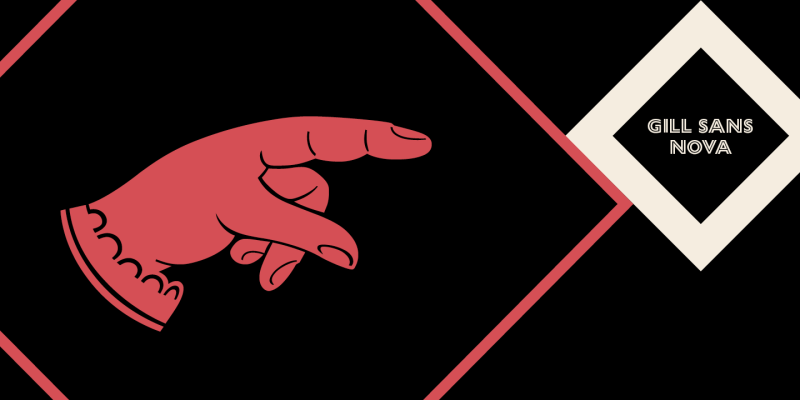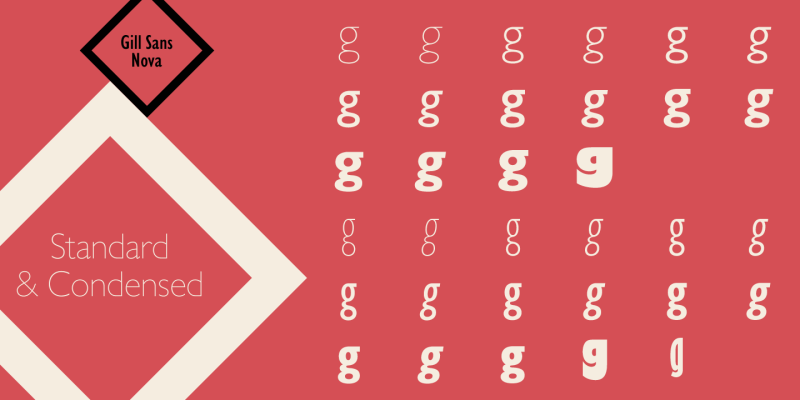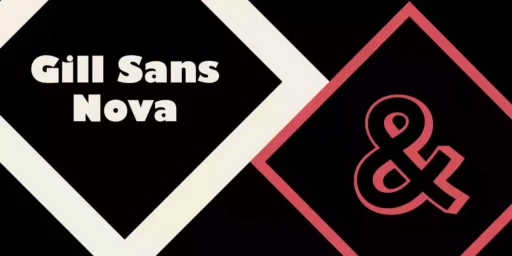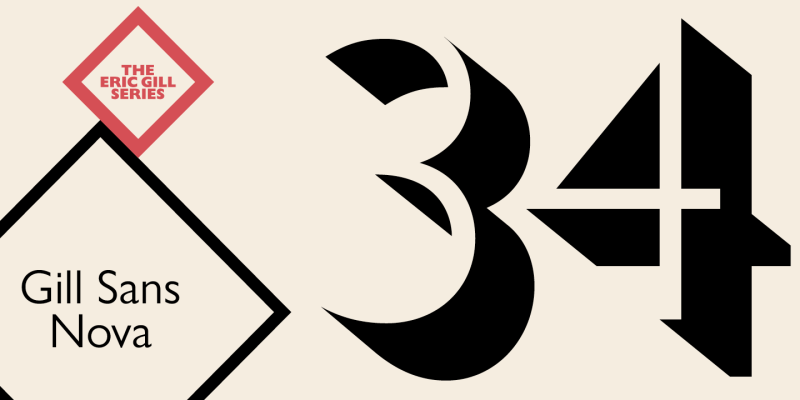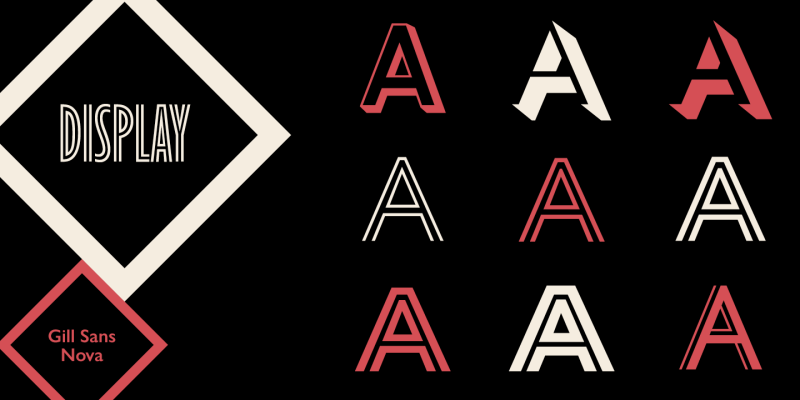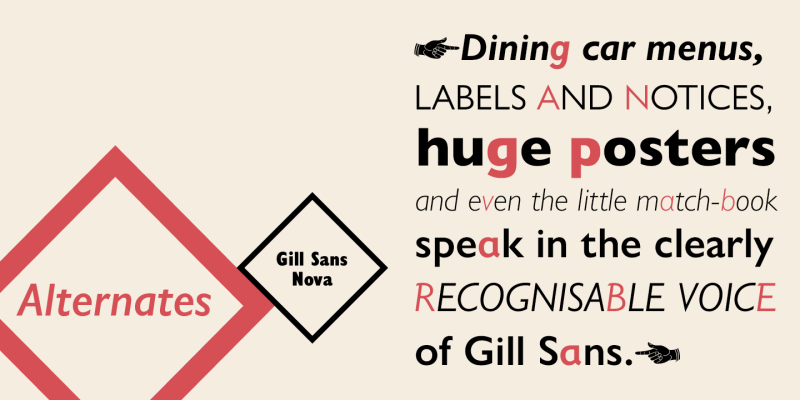
Gill Sans Nova Font
Gill Sans Nova is a modern revival of the famous Gill Sans font, created by the prominent British designer Eric Gill in the 1920s and 1930s. Monotype’s George Ryan designed Gill Sans Nova in 2015 to transform the classic version to fit in with modern digital environments without losing its original spirit.
Gill Sans Nova retains the distinctive characteristics that made the original Gill Sans so famous: its cleanliness, geometrical shapes, open counters, and humanistic impact. However, Ryan has introduced numerous improvements and additions that would make it more flexible and functional for contemporary designers and typographers.
A significant improvement of Gill Sans Nova is extending its character set to additional weights, styles, and language support. This makes typographic expressions more flexible in design projects for both print and digital media, helping typographers create a wide range of expressions.
Further, Gill Sans Nova integrates enhancements in spacing and kerning, making it more readable and attractive in various text sizes and settings. With Ryan’s adjustments, the typeface remains readable and elegant even in challenging typographic environments.
In addition, Gill Sans Nova includes richer OpenType capabilities, which gives typographers new opportunities for innovative typography. Such characteristics encompass alternate characters, ligatures, and stylistic sets that empower designers to tweak the look of a text, making it more attractive to their designs.
Where Gill Sans Nova Font works best
Gill Sans Nova Font stays legible at small sizes, which makes it a strong choice for navigation, buttons and dashboards in web design and app interfaces.
Clean sans serifs like Gill Sans Nova Font are the default language of SaaS, fintech and product branding.
What is Gill Sans Nova Font good for?